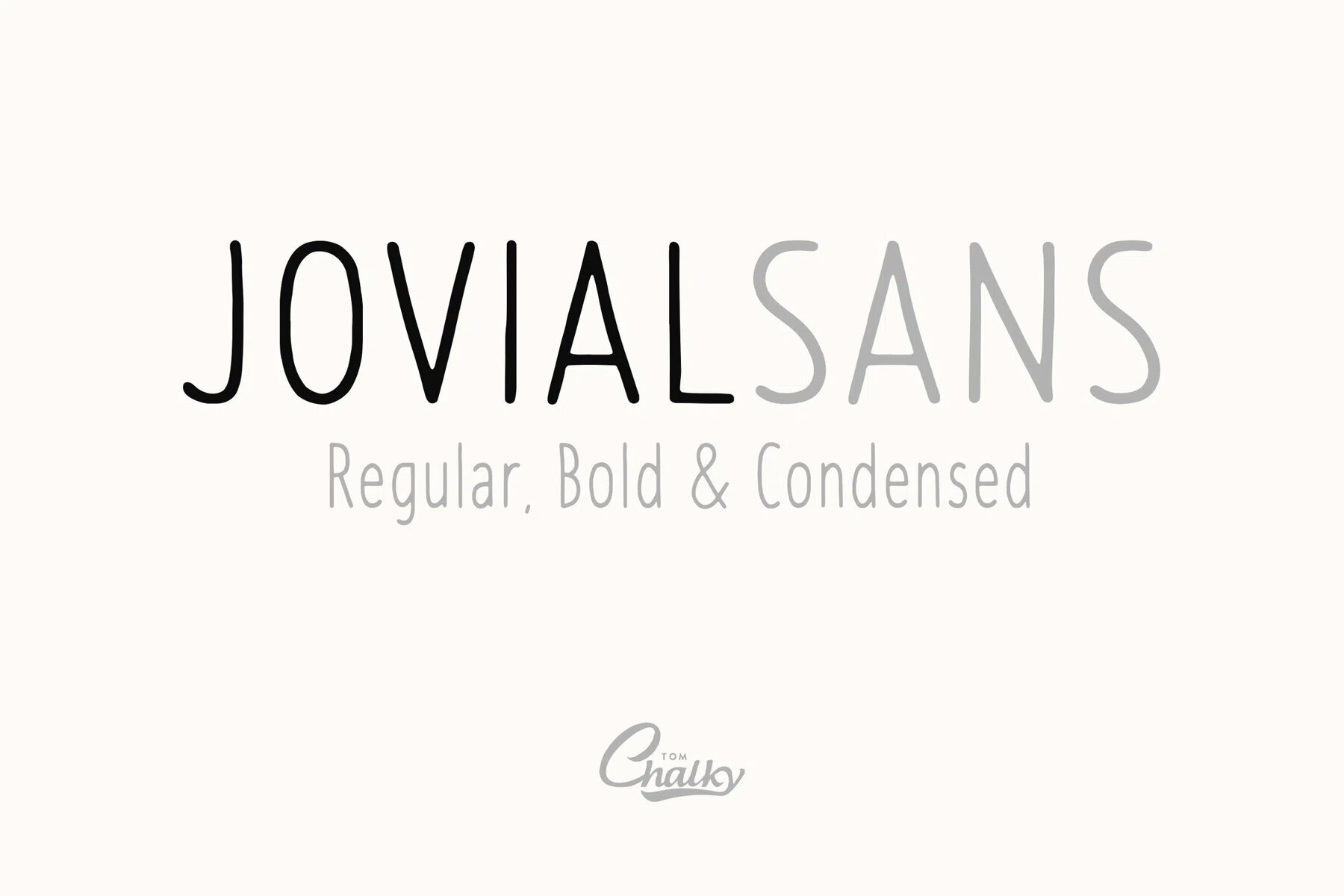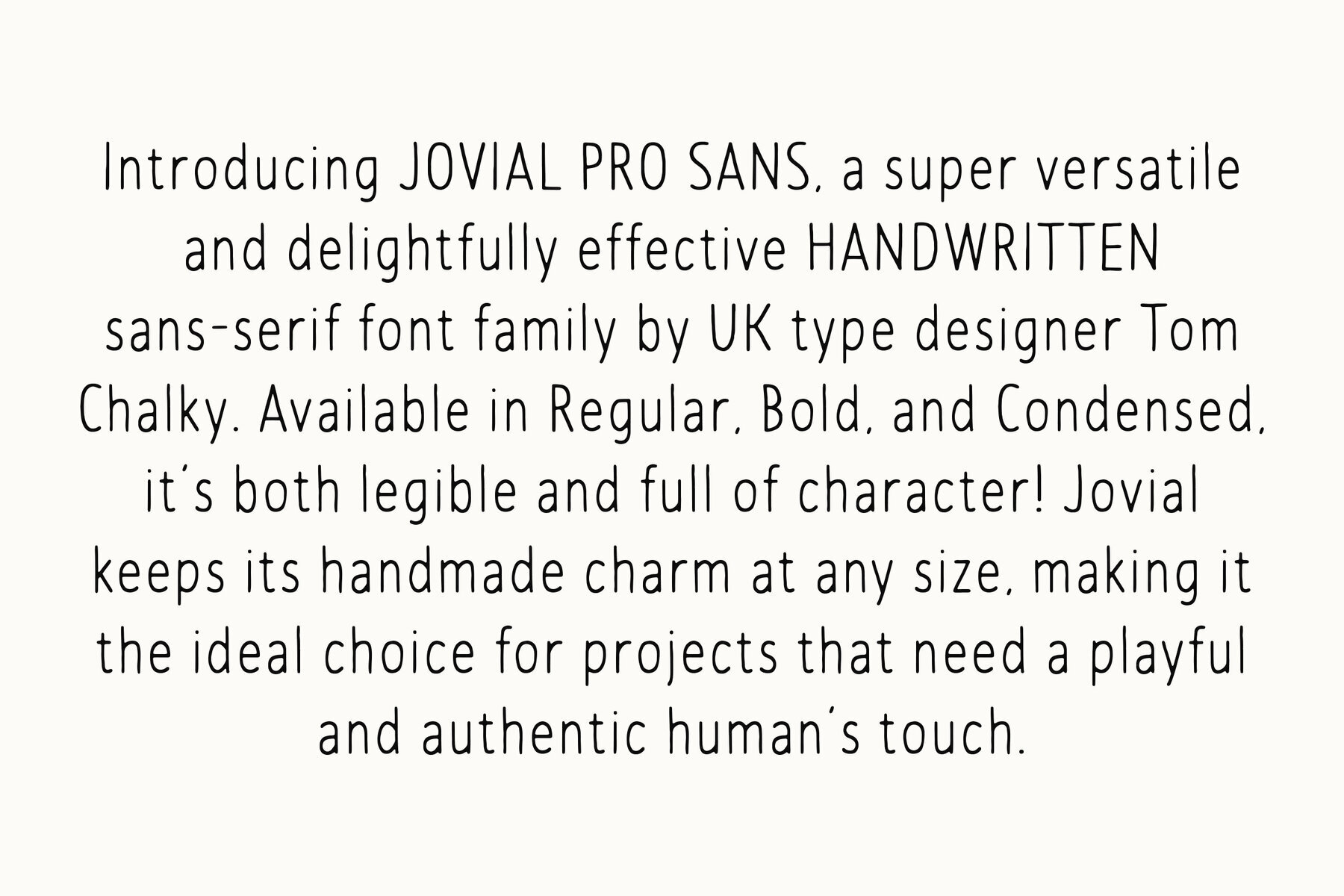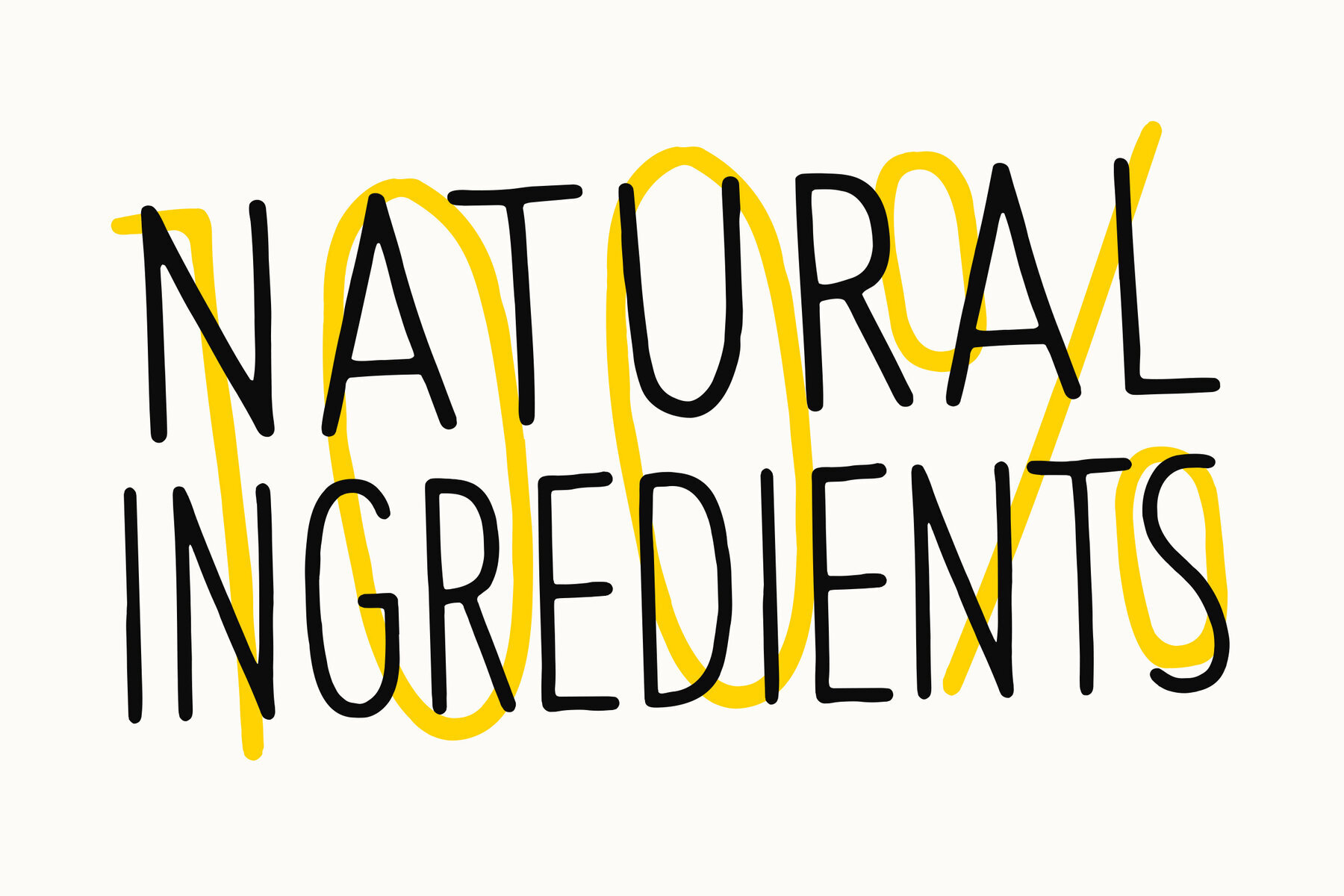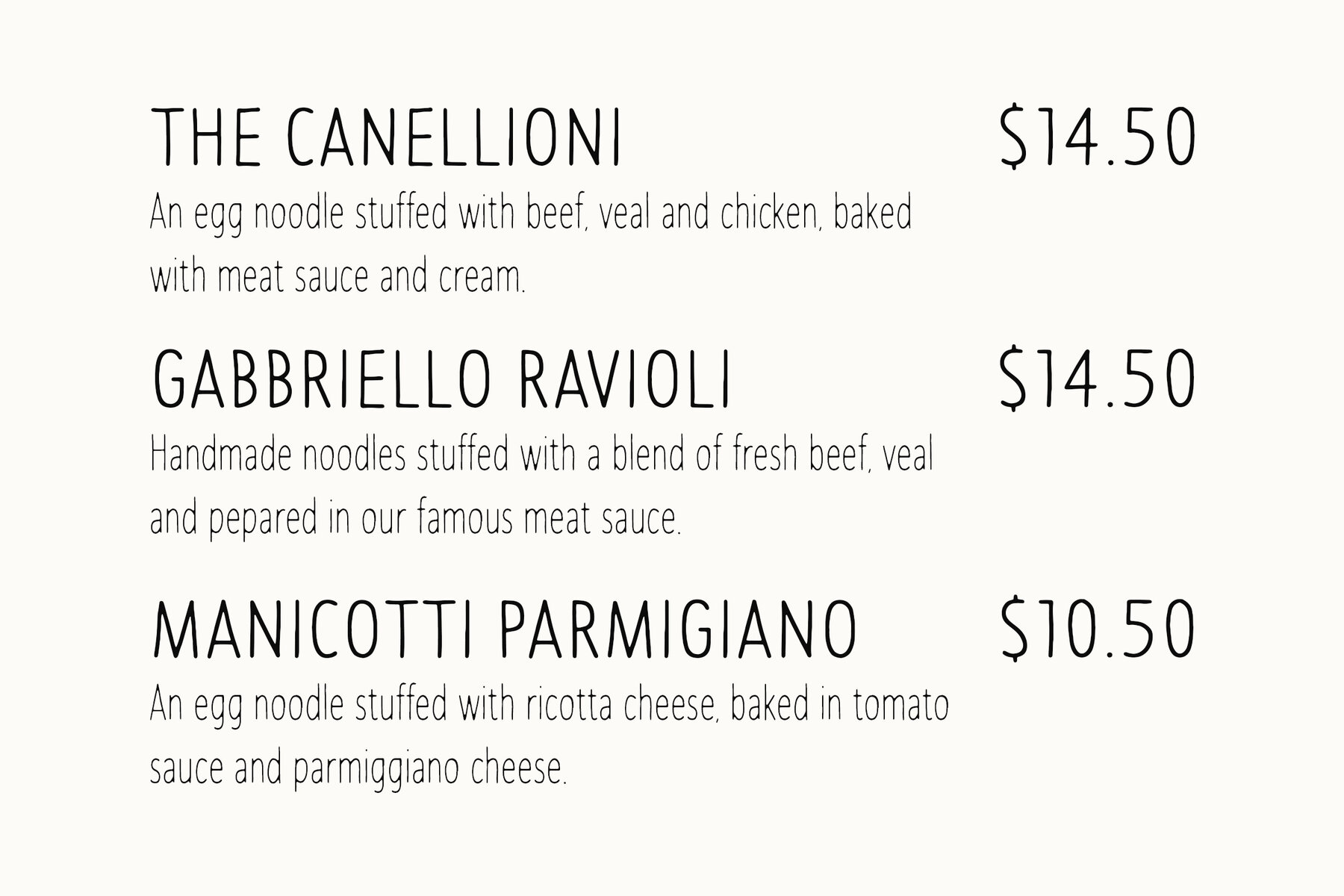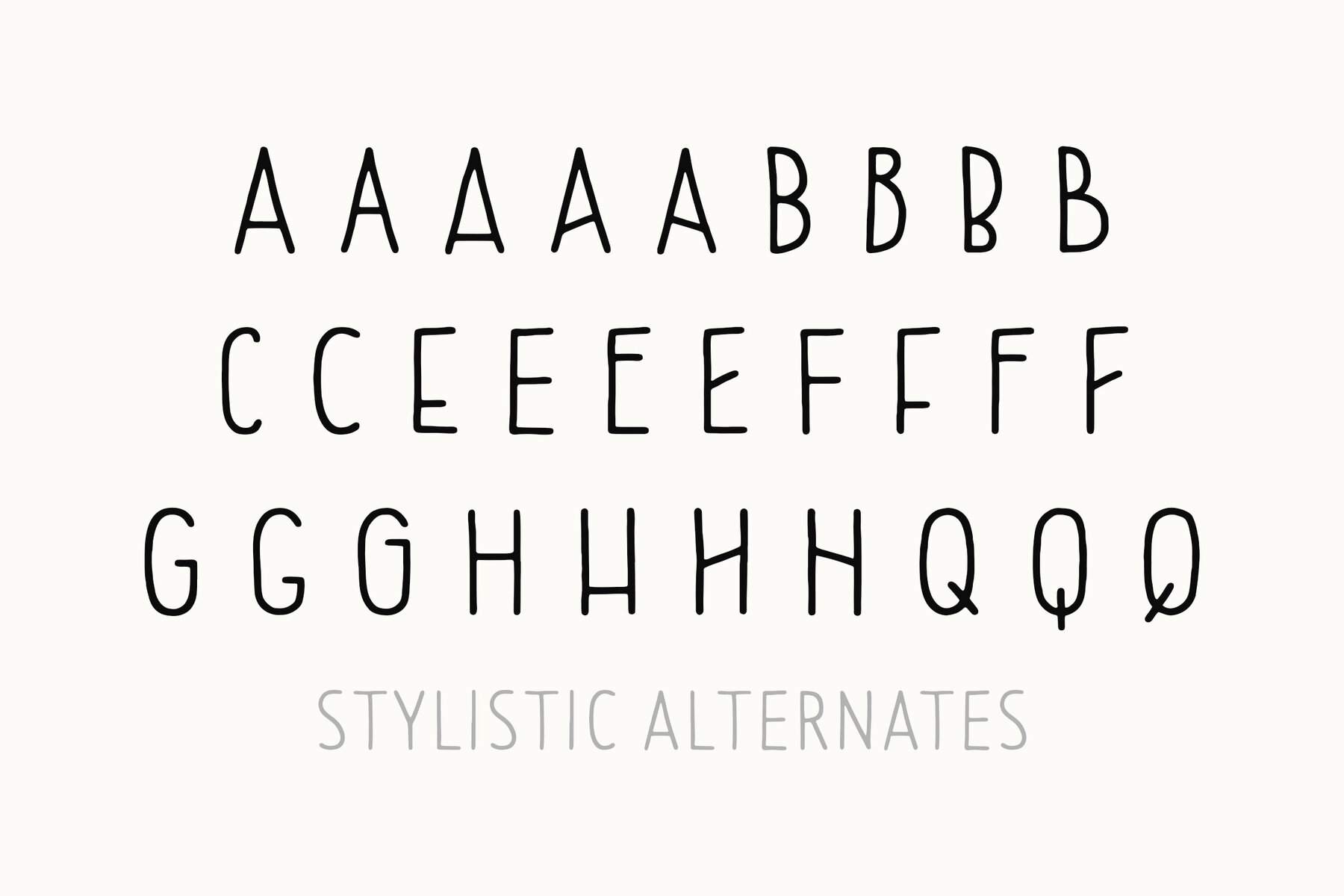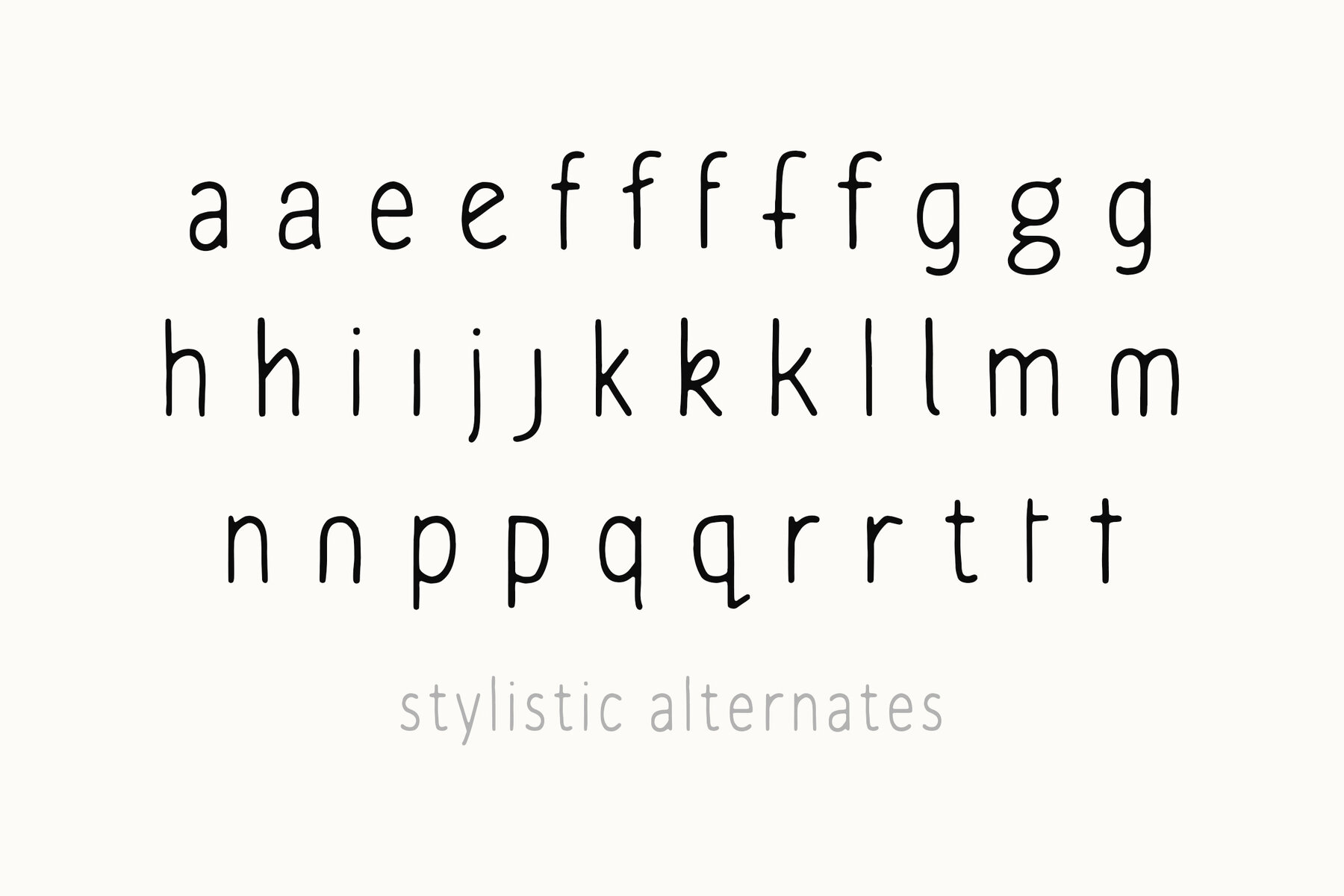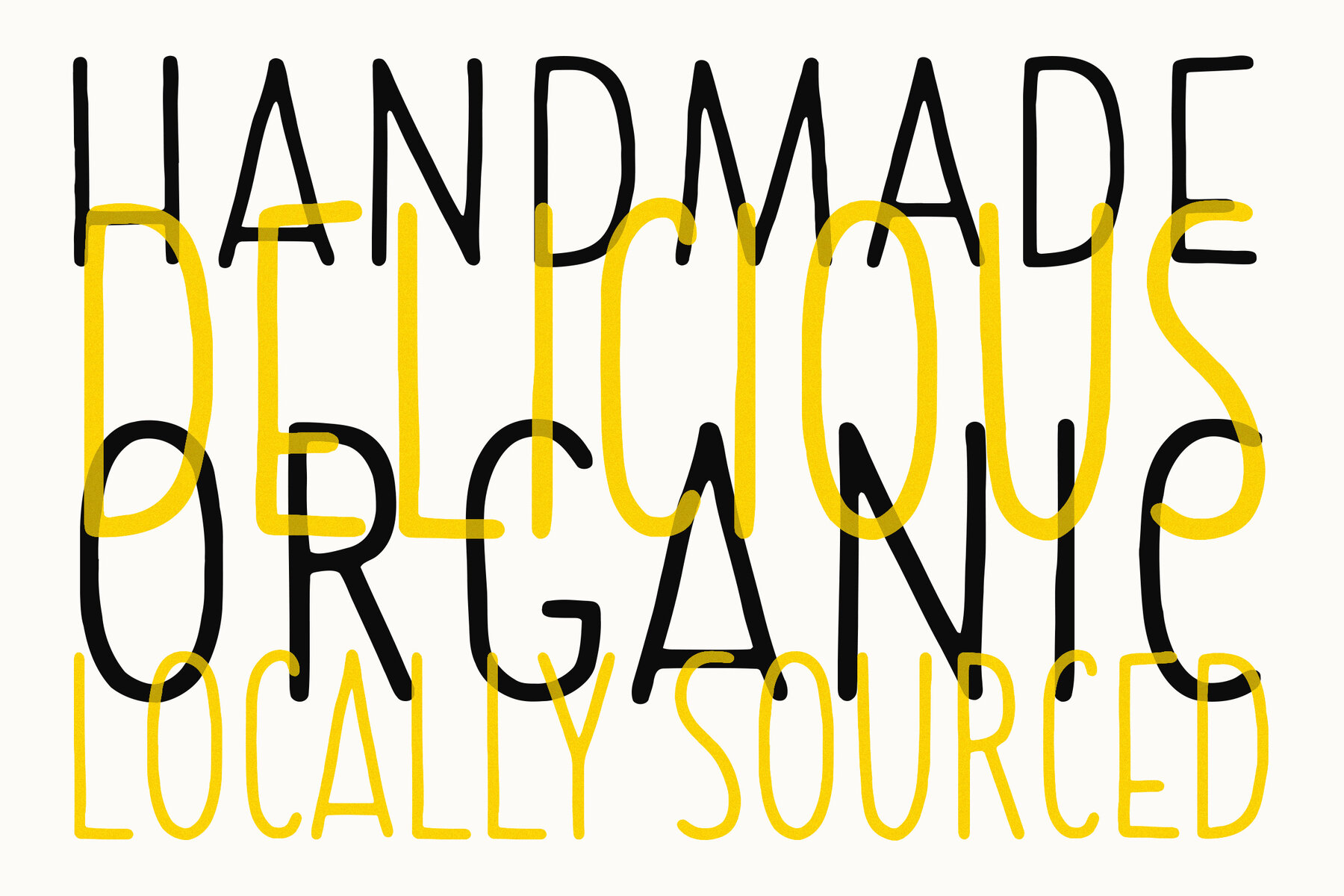
TC Jovial Sans Pro Font
Jovial Sans is a playful, handwritten typeface designed to bring warmth and personality. With its quirky letterforms and organic flow, this font is perfect for projects that need a personal touch without compromising on readability. Available in Regular, Bold, and Condensed styles, it offers flexibility for everything from menus and packaging to logos and posters. Jovial Sans is both inviting and versatile, adding an authentic, handcrafted vibe that feels professional yet casual. Whether you're working on branding, a digital design, or a fun editorial, this font has you covered.